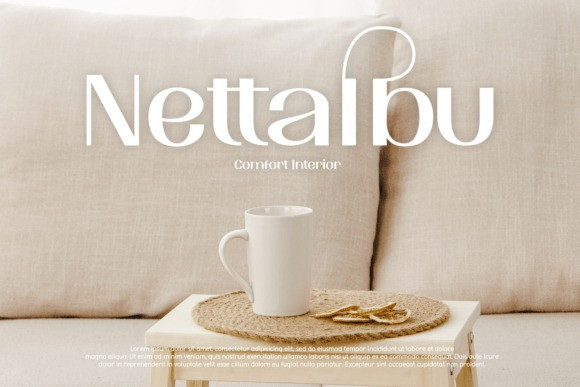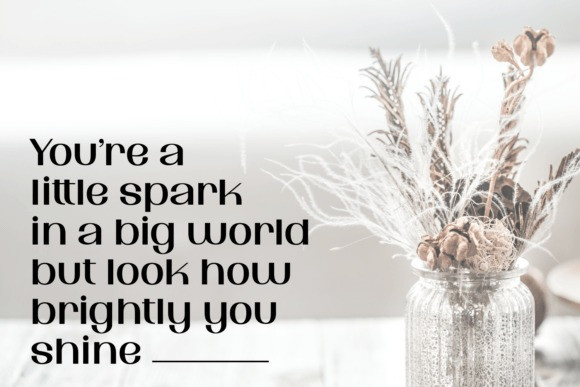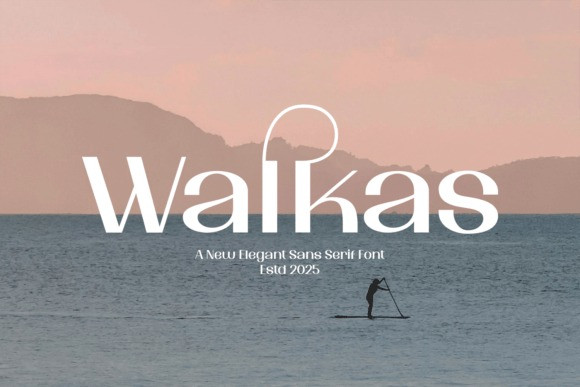
Walkas Font
Walkas Font, a new elegant sans serif font from the year 2025. The tranquil, summery atmosphere perfectly complements the font’s sophisticated and modern character, which features unique and stylish alternate letterforms.